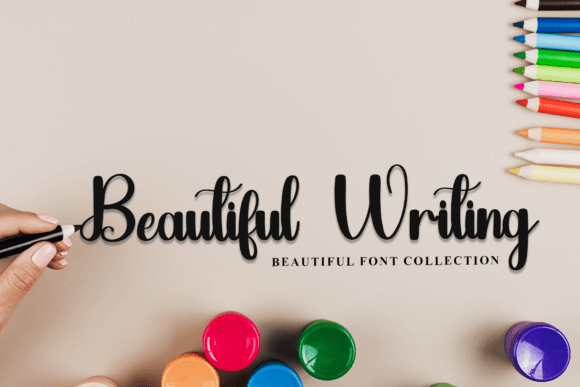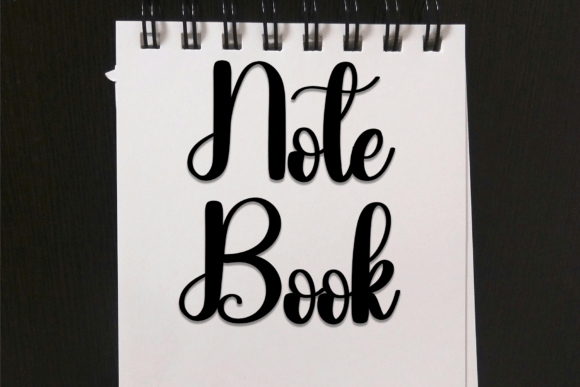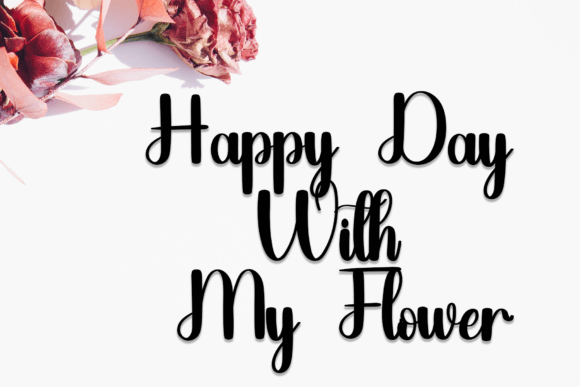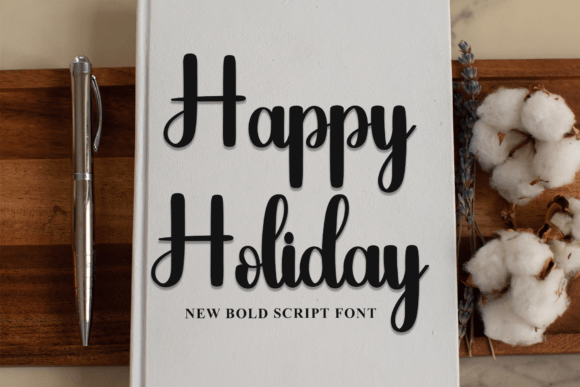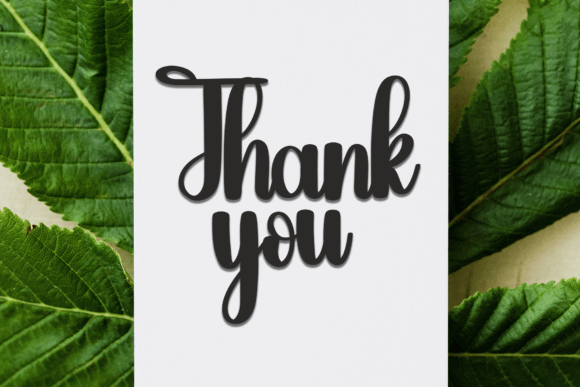
Introducing Football Player Font: The Perfect Choice for Designers and Crafters
Are you tired of using the same old fonts for your designs? Look no further than the Football Player font, a beautiful and attractive typeface that is sure to take your work to the next level. With its soft touch, unique stroke, and distinctive style, this font is perfect for designers and crafters looking to add a touch of elegance and sophistication to their projects.
A Font with a Soft Touch
The Football Player font is characterized by its soft and gentle touch, making it perfect for designs that require a subtle yet impactful look. The font’s unique stroke is designed to give your text a sense of fluidity and movement, making it ideal for designs that require a dynamic and energetic feel.
Unique and Distinctive
What sets the Football Player font apart from other fonts is its unique and distinctive style. The font’s characters are carefully crafted to give your text a sense of personality and charm, making it perfect for designs that require a touch of whimsy and creativity.
Many Characters to Choose From
The Football Player font comes with a wide range of characters, making it perfect for designers and crafters who need a font that can keep up with their creative demands. Whether you’re working on a logo, a brochure, or a website, this font has got you covered.
Perfect for Various Design Needs
The Football Player font is versatile and can be used for a wide range of design needs, including handicrafts, posters, flyers, and more. Its natural font style makes it suitable for various products, from fashion and beauty to food and beverage.
Make Your Work Attractive to Many
The Football Player font is designed to make your work attractive to many people in various arts and designs. Its unique and distinctive style is sure to grab attention and leave a lasting impression on your audience.
Examples of Football Player Font in Use
Here are a few examples of how the Football Player font can be used in different designs:
- Logo Design: Use the Football Player font to create a unique and memorable logo for your brand.
- Poster Design: Create eye-catching posters for your business or event using the Football Player font.
- Handicrafts: Use the Football Player font to add a personal touch to your handmade products, such as jewelry, candles, or crafts.
Tips for Using Football Player Font
Here are a few tips for using the Football Player font in your designs:
- Experiment with different sizes: The Football Player font looks great in various sizes, from small and delicate to large and bold.
- Pair it with other fonts: Try pairing the Football Player font with other fonts to create a unique and interesting contrast.
- Use it for headlines and titles: The Football Player font is perfect for headlines and titles, adding a touch of elegance and sophistication to your text.
In conclusion, the Football Player font is a beautiful and attractive typeface that is perfect for designers and crafters looking to add a touch of elegance and sophistication to their projects. With its soft touch, unique stroke, and distinctive style, this font is sure to take your work to the next level.